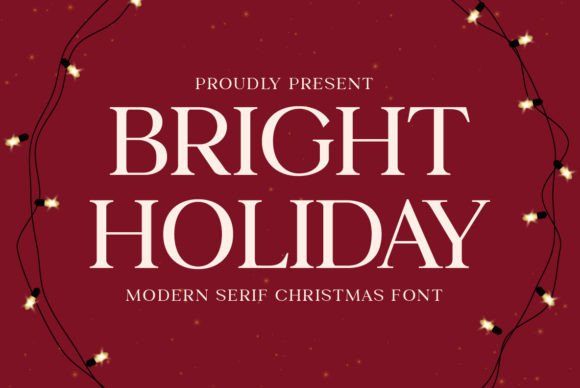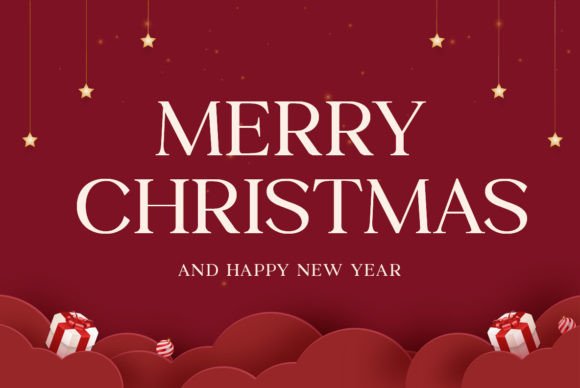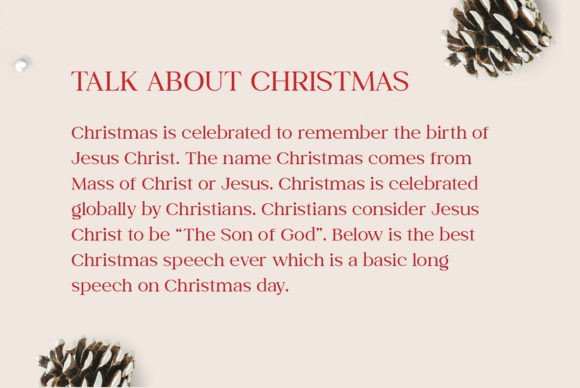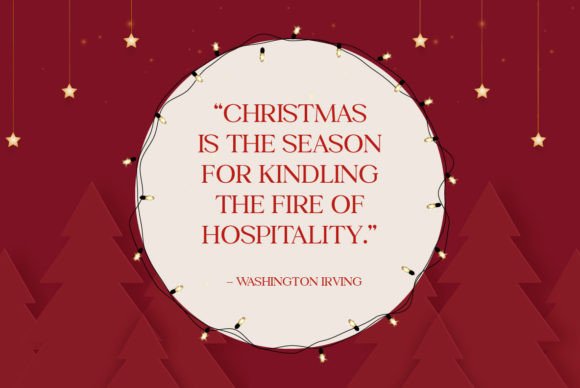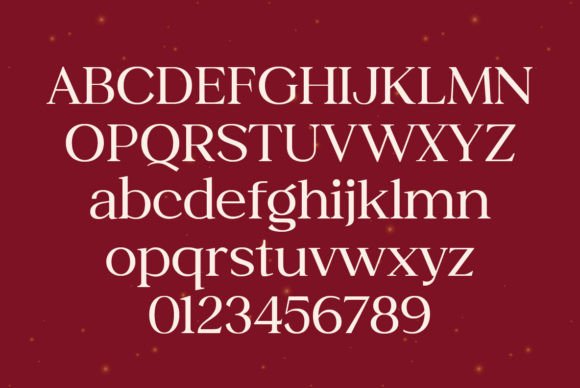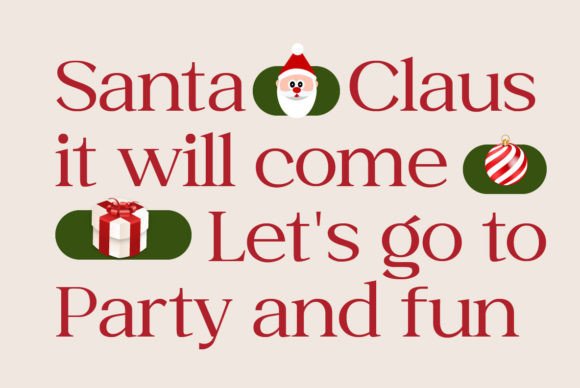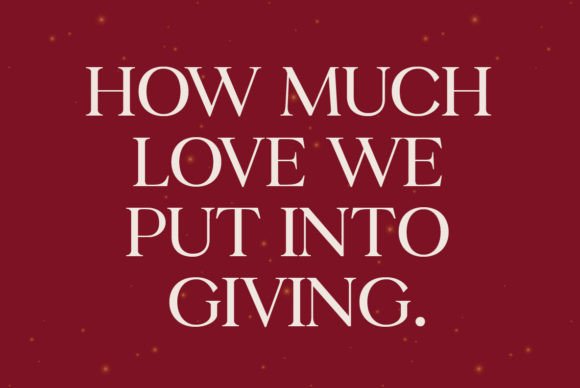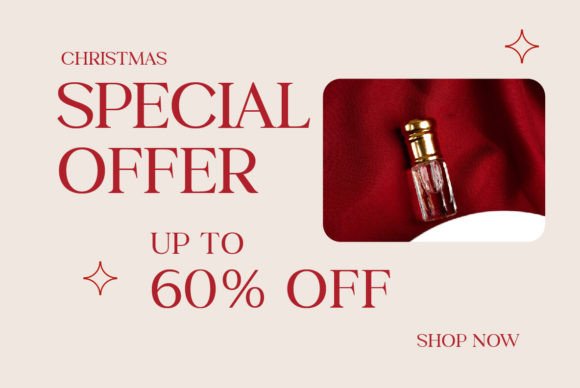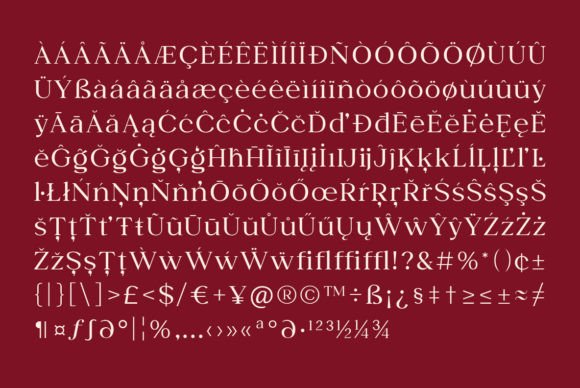
Bright Holiday is an elegant and artistic typeface that can be used to create attractive Christmas designs. This font has a beautiful shape and is great for use in various design projects, from invitations, greeting cards, to posters or flyers.